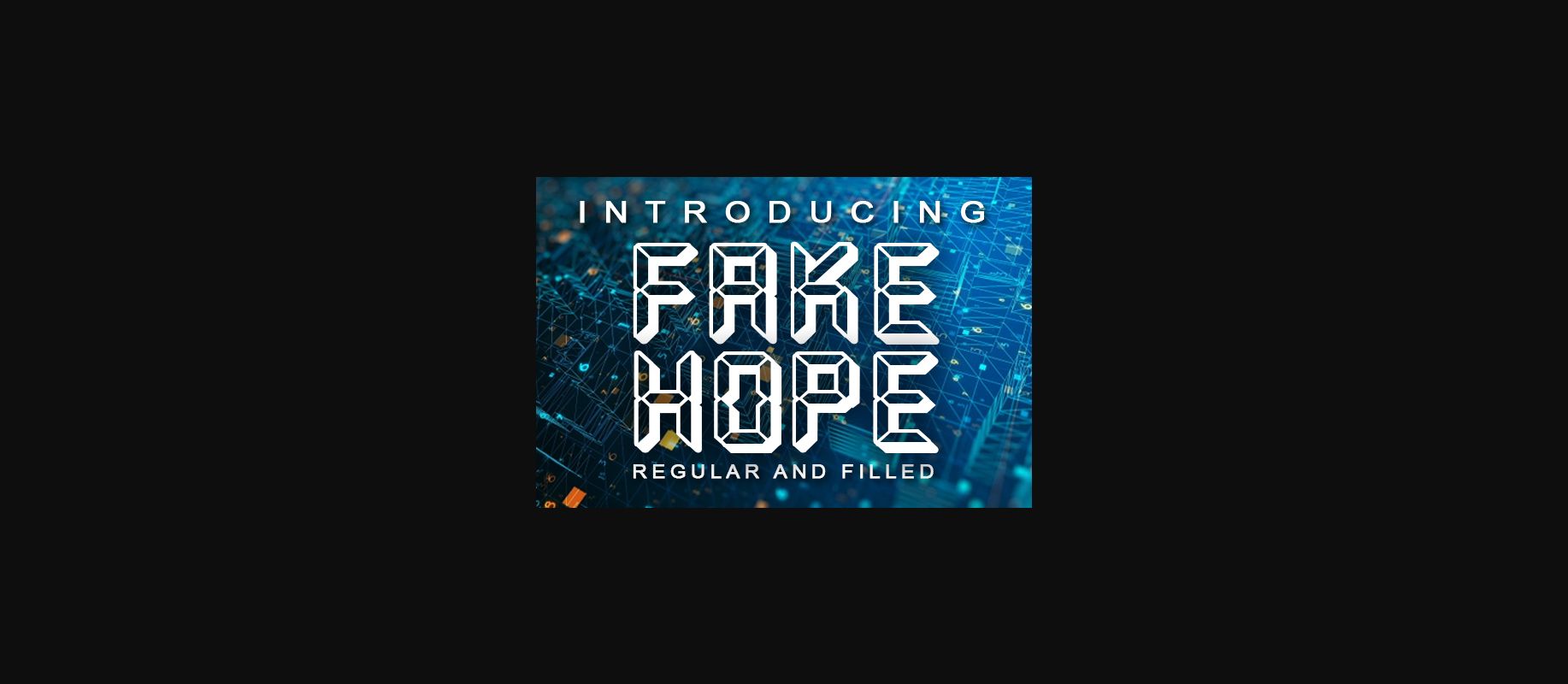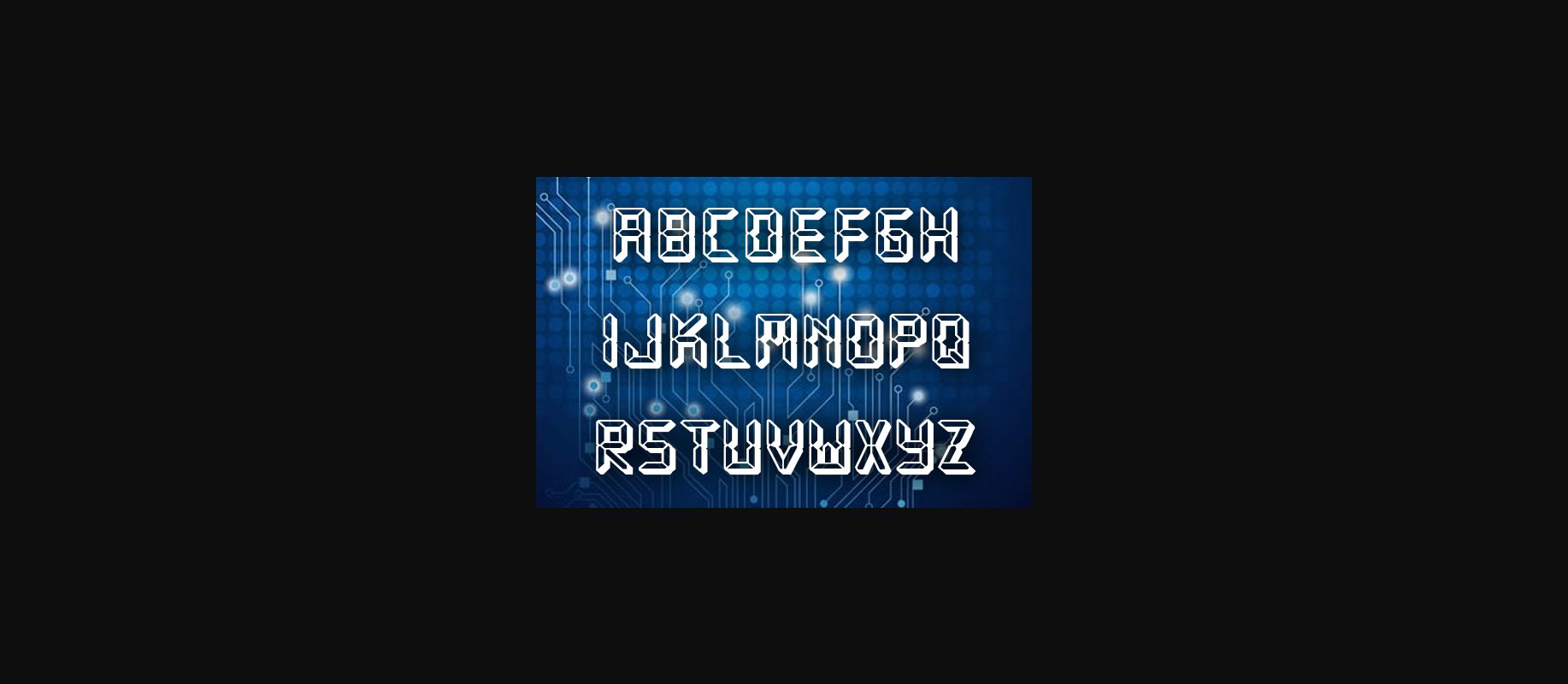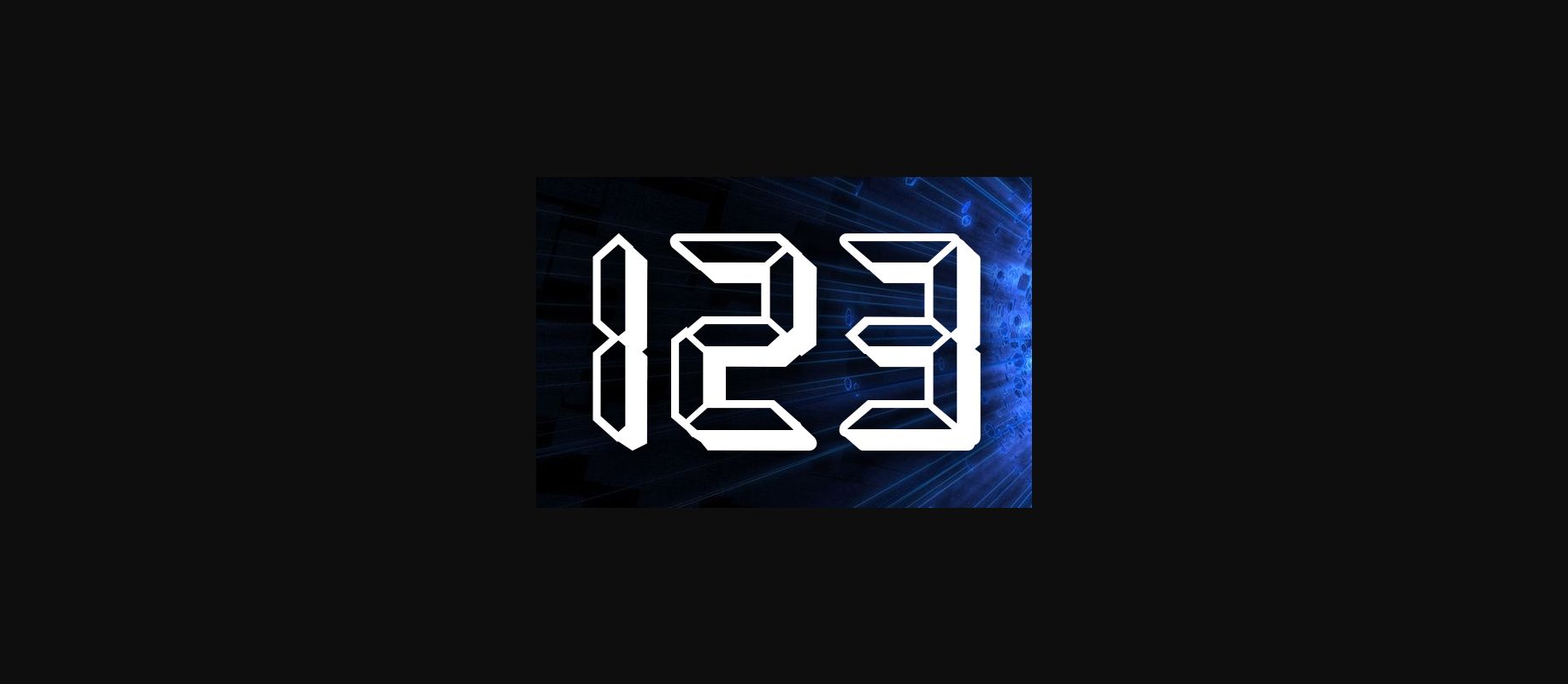
About Fake Hope Font
Fake Hope embodies fun, quirkiness and authenticity. This enchanting decorative font will turn any creative idea into a true standout.